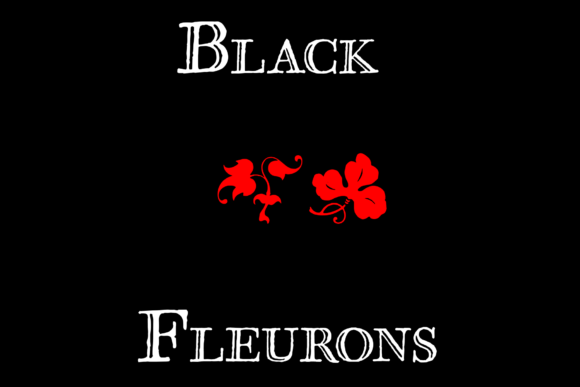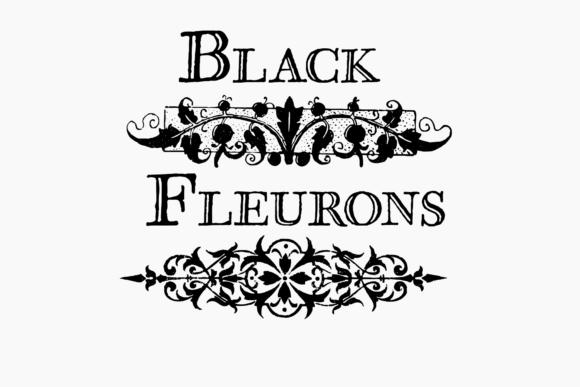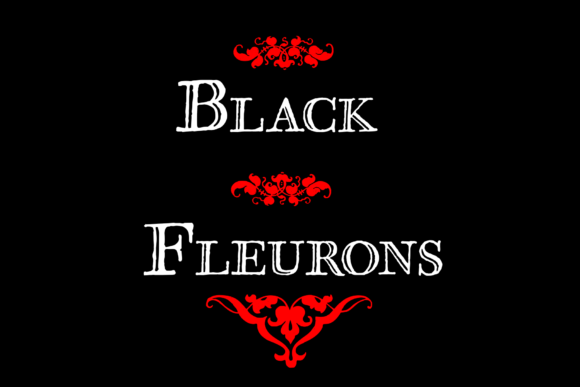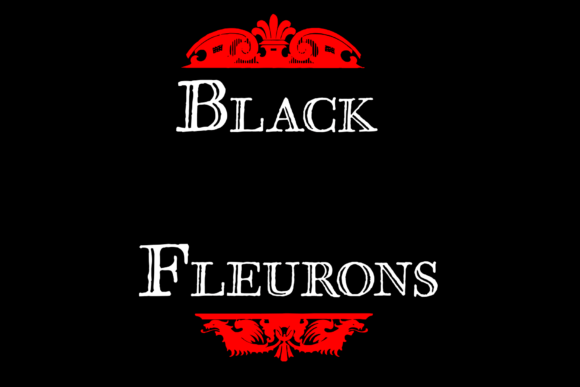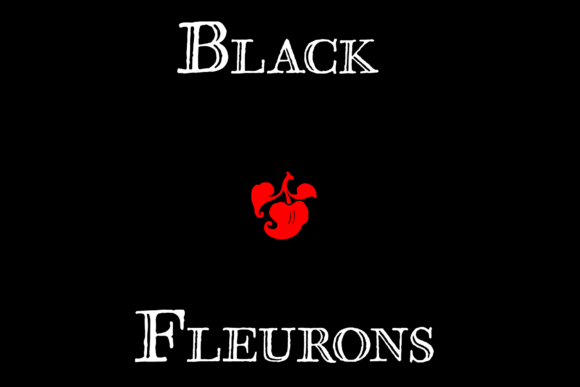
Black Fleurons
Font Family by Intellecta Design
Unveil the sublime artistry of BlackFleurons, an exquisite classic ornament font expertly crafted by Intellecta Design. This unique design element borrows inspiration from classic aesthetics, infusing them with a contemporary twist. BlackFleurons is more than a font; it’s a captivating experience that embellishes your projects, lending them a distinctive elegance that stands the test of time. Each ornament in this collection seamlessly weaves together, creating a symphony of design elements that come together to form an impressive typography masterpiece.